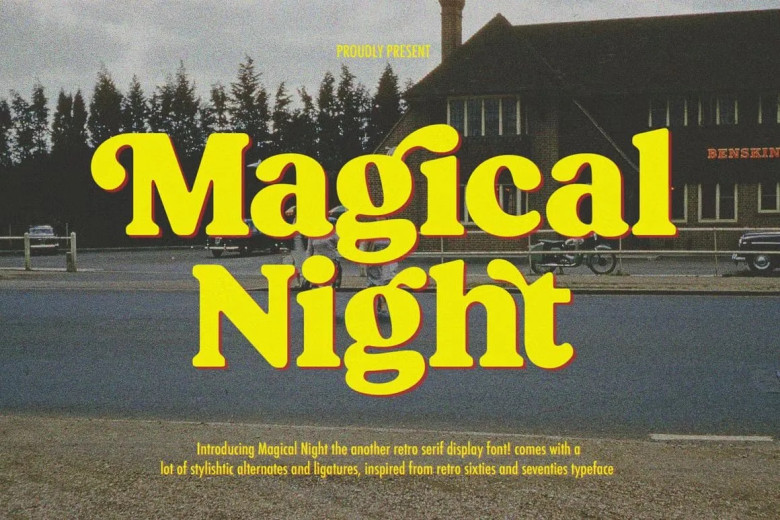
Magical Night Font
Magical Night is a unique classic serif typeface inspired by large typefaces from the seventies and sixties, complete with retro flair due to ligature characters and alternate characters that add retro charm. Perfect for logotypes, headings posters etc.
Magical Night Serif Font